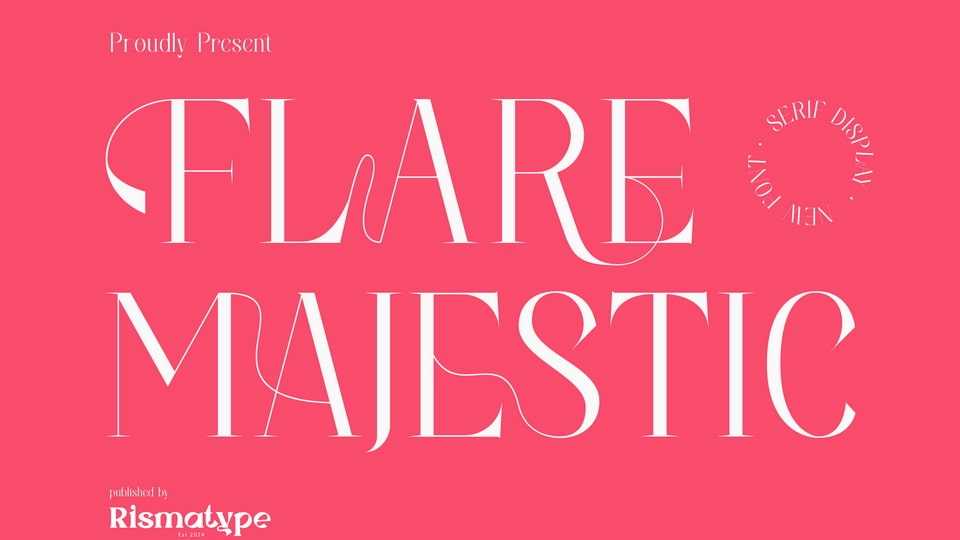
Download Flare Majestic font, a modern display typeface with an elegant and artistic flair. Designed to stand out, it combines bold curves and stylish details to deliver a luxurious, high-impact look.
Designer: Risma Mulyasari